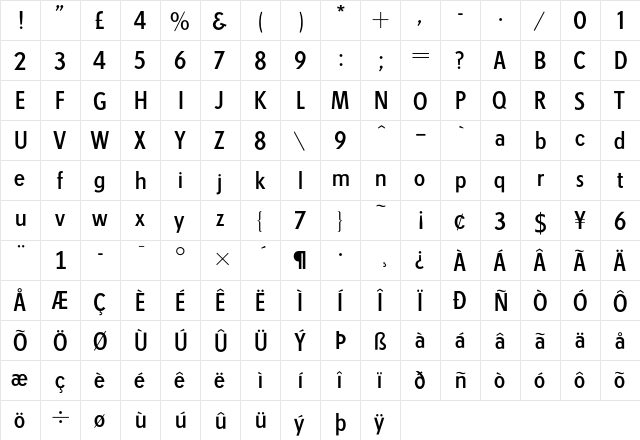
Esseltub Regular
Design Context for Esseltub Typeface
Esseltub offers clean, dependable letterforms without strong stylistic allegiance, making it a practical choice for designers who need flexibility.